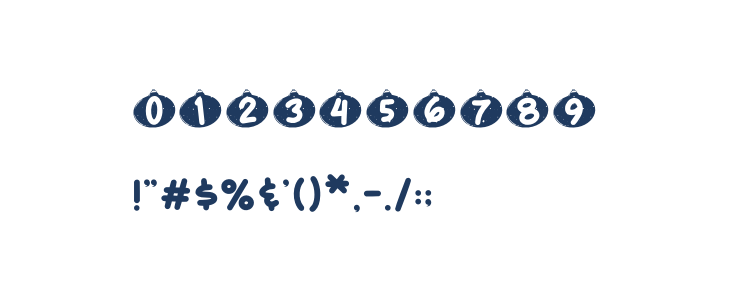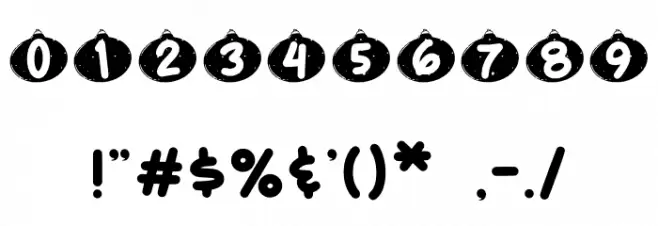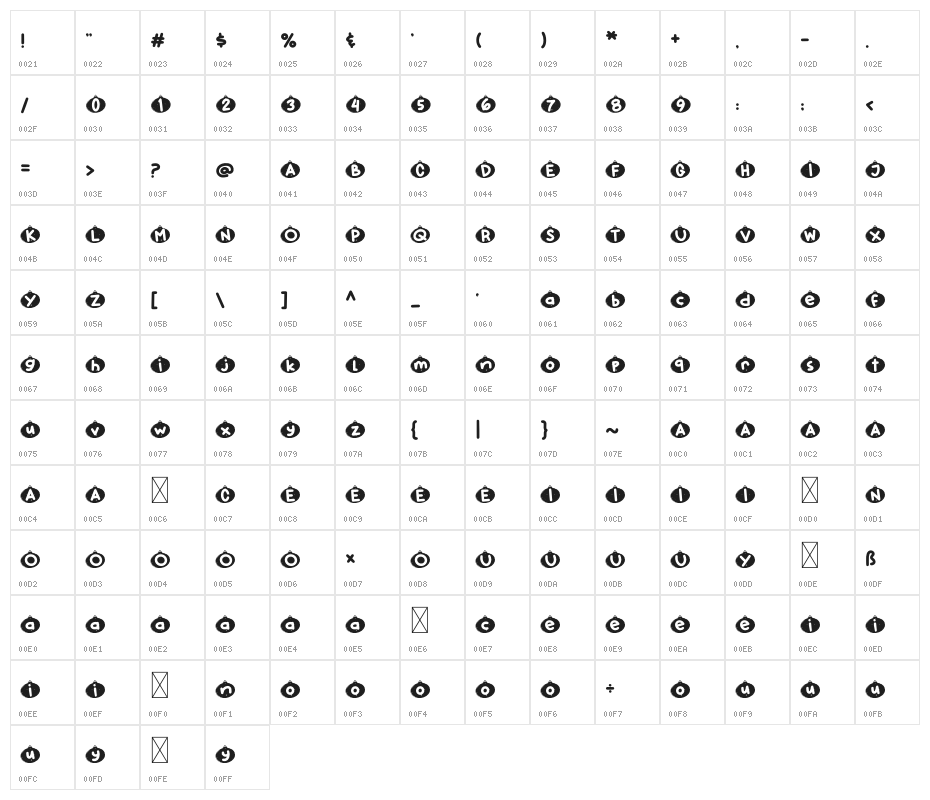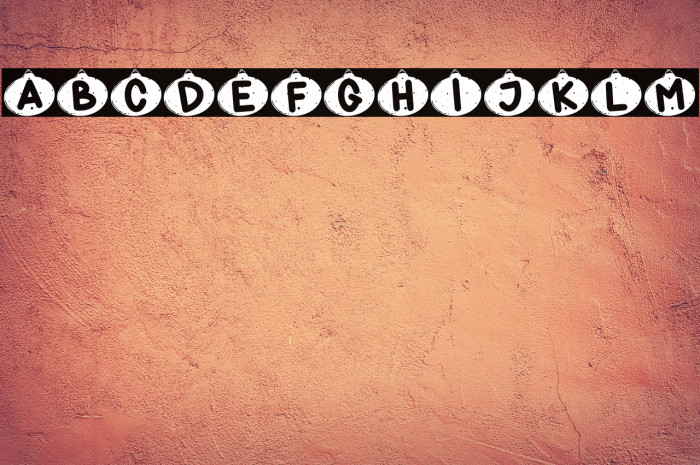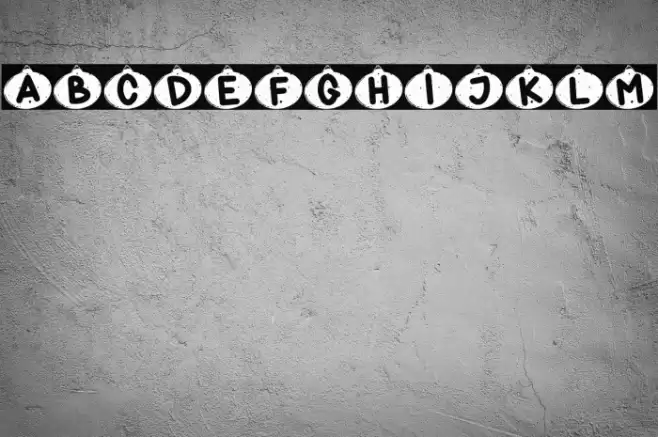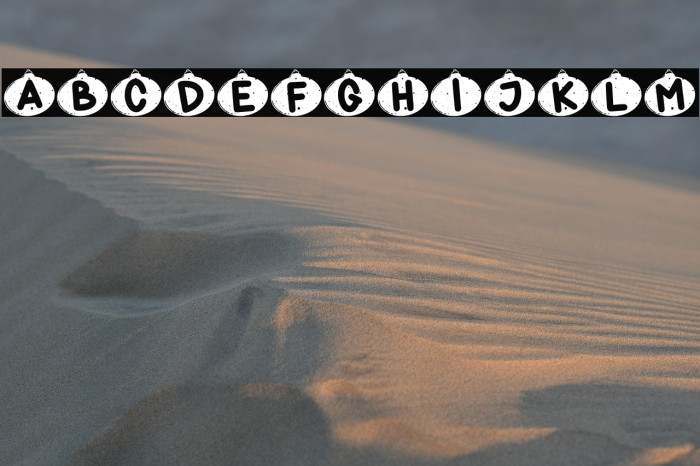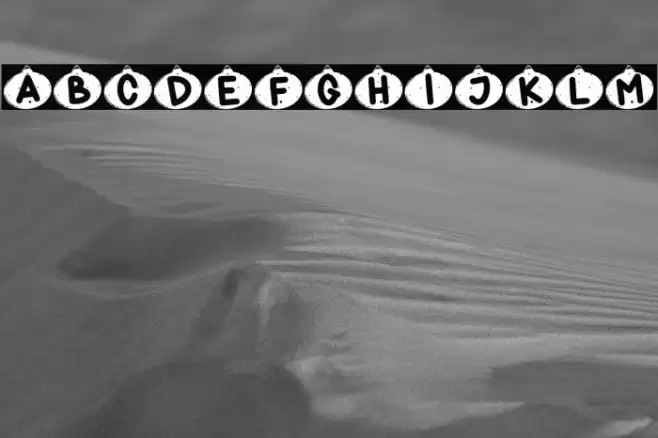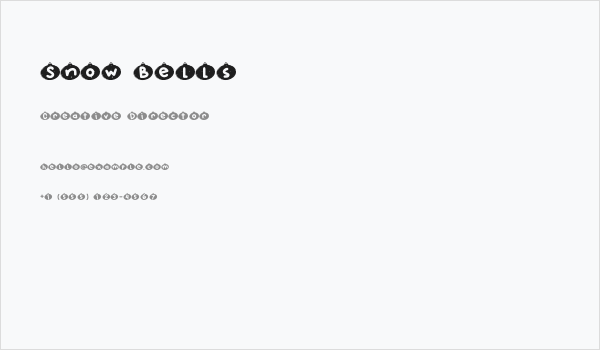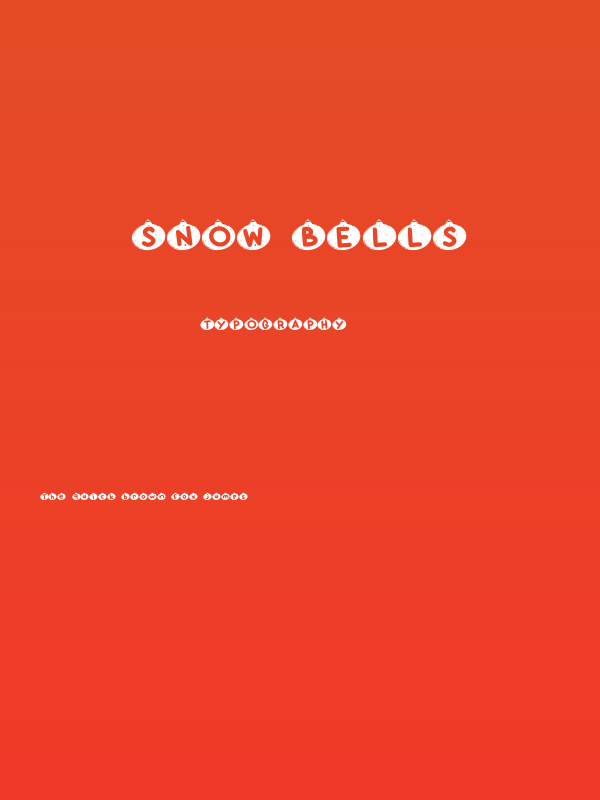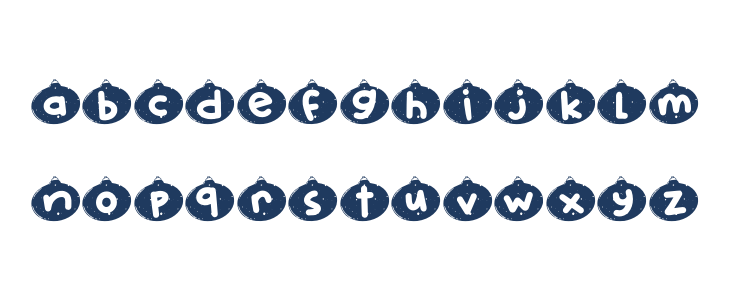
Snow Bells Font
Snow Bells Description
This whimsical font features characters enclosed in circular shapes resembling holiday ornaments. Each letter and number is centered within a black circle, giving it a playful and festive appearance. The characters are bold and rounded, with a consistent thickness throughout, creating a uniform look. The design includes small decorative elements like dots and stars, enhancing its seasonal charm. The font is ideal for holiday-themed projects, offering a unique and joyful aesthetic that captures the spirit of celebration. Its distinct style makes it suitable for eye-catching designs.
| Proposed Projects | Ideal for holiday cards, festive banners, seasonal advertisements, and decorative posters. |